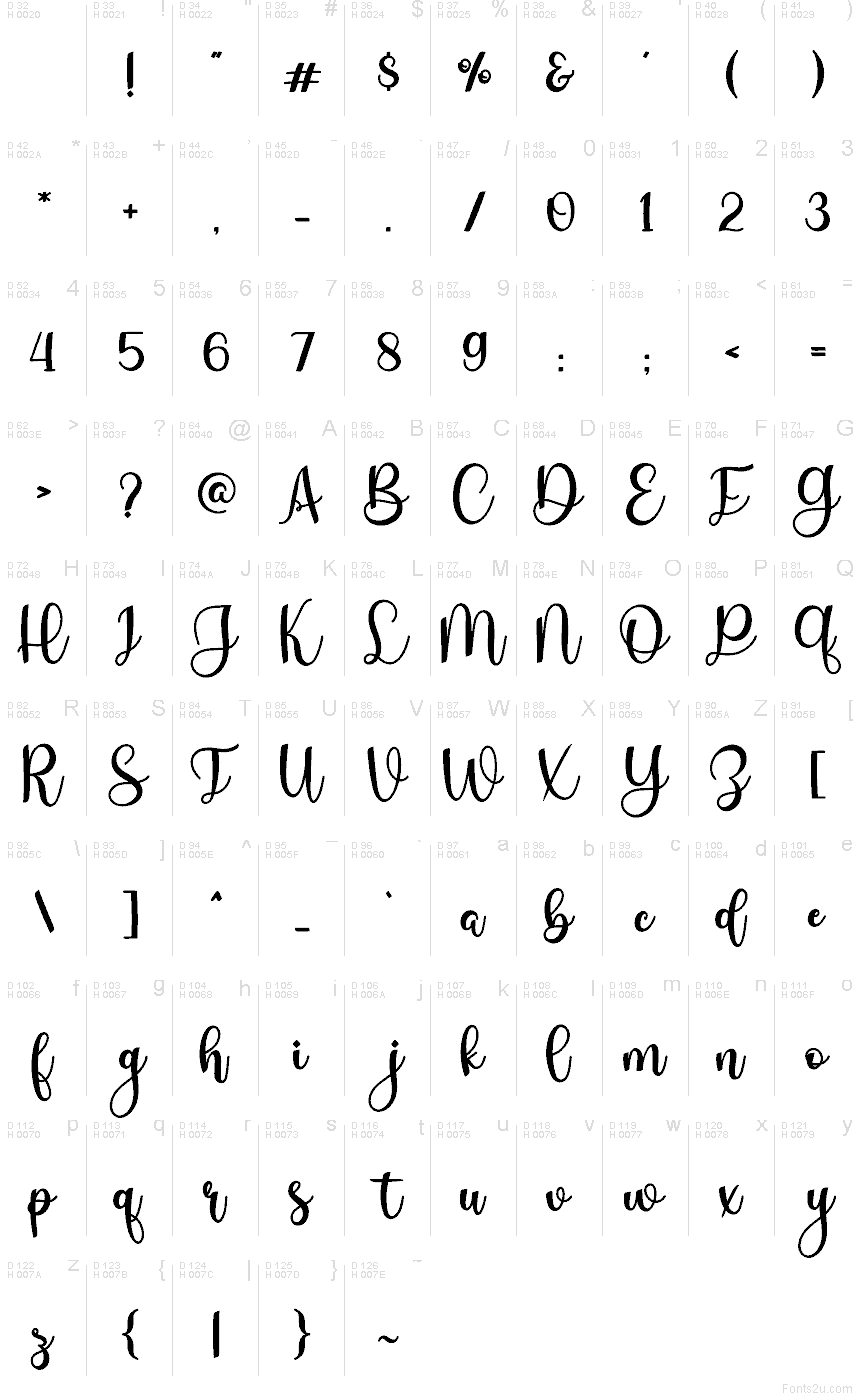
Christabelle
Christabelle font by Airotype is a free Valentine calligraphy typeface with a warm, hand-lettered charm. Its inky, medium-bold strokes and generous loops feel like they were brushed straight onto a card, giving every word a soft, romantic energy. The letters bounce lightly along the line, close-set and cozy, creating a playful rhythm that still reads clearly at a glance.
Using Christabelle, your holiday designs instantly feel more personal—think Valentine cards, wedding invitations, love notes, gift tags, romantic quotes, and boutique branding. This free font shines at larger sizes where its swirls and curves can really breathe. For a balanced layout, pair Christabelle with a simple, modern sans-serif for small supporting text.